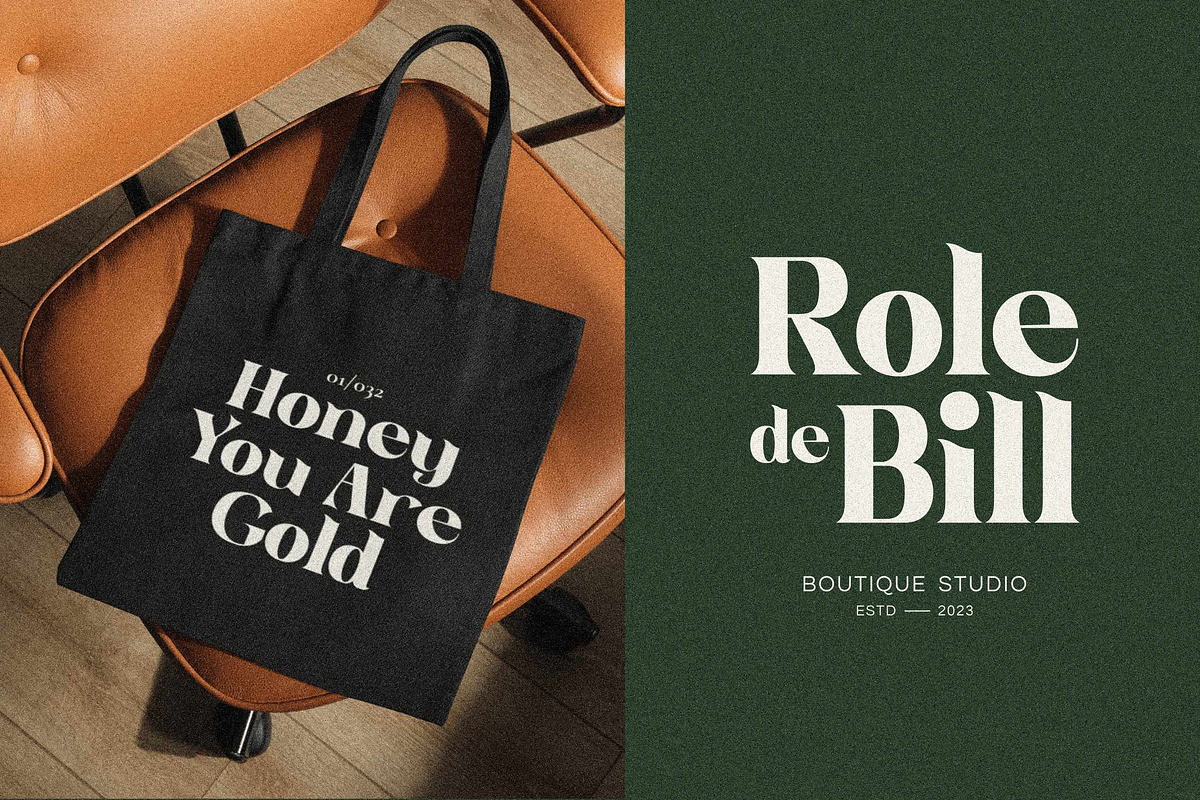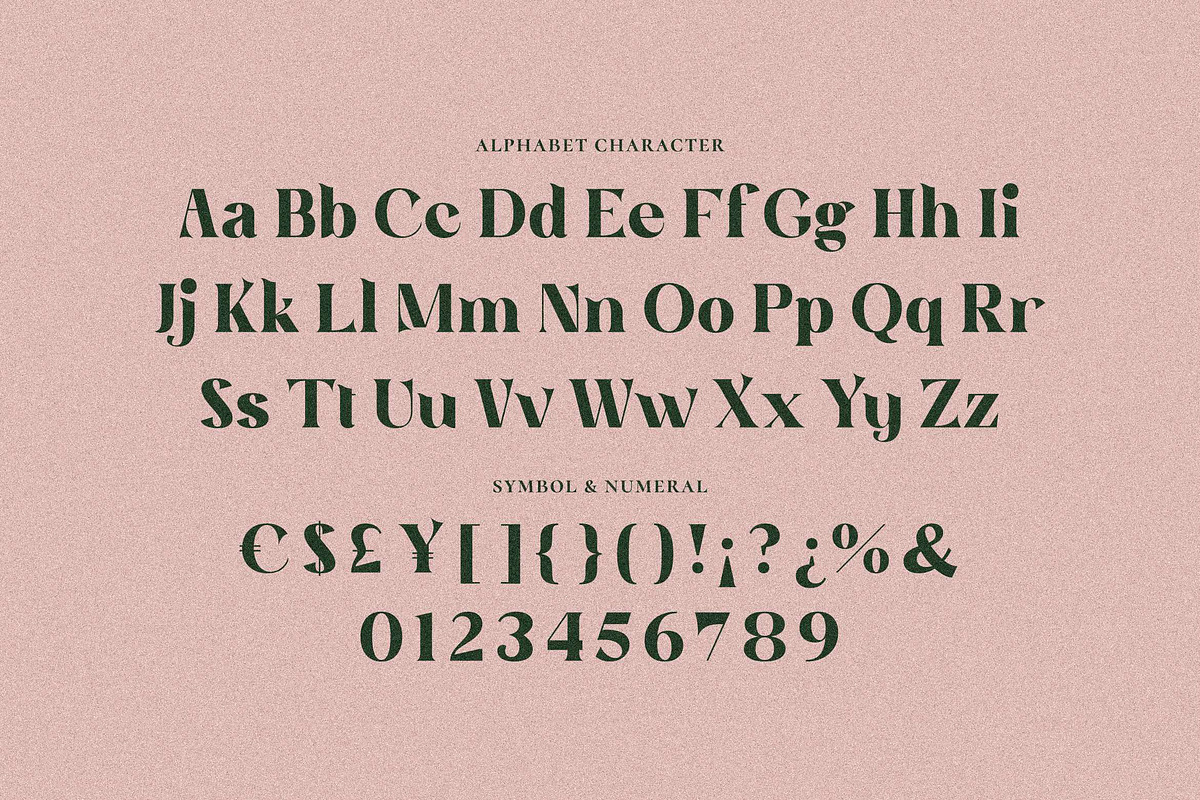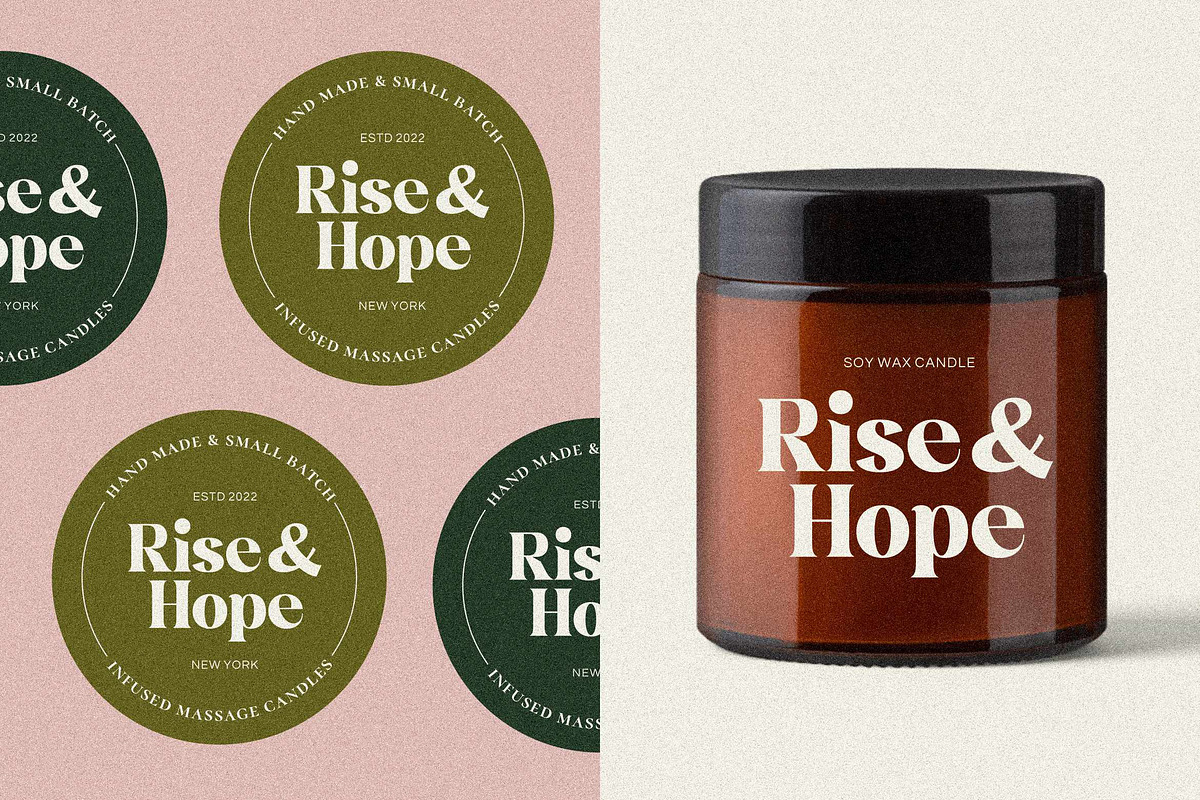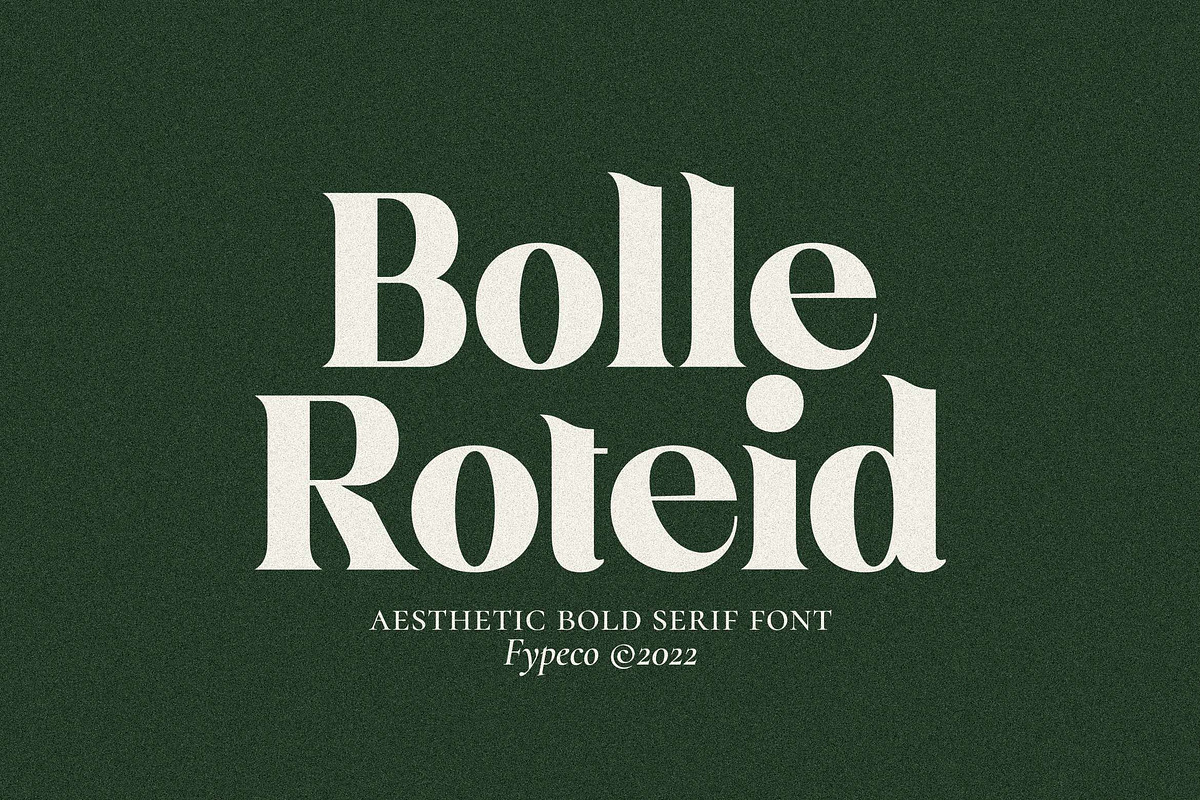
Bolle Roteid - Aesthetic Bold Serif
Bolle Roteid is a aesthetic bold serif font. Complemented. Unique shape gives a deep impression. suitable for modern and minimalist themes. Bolle Roteid is a great choice for headlines, titles, logo, posters and branding.